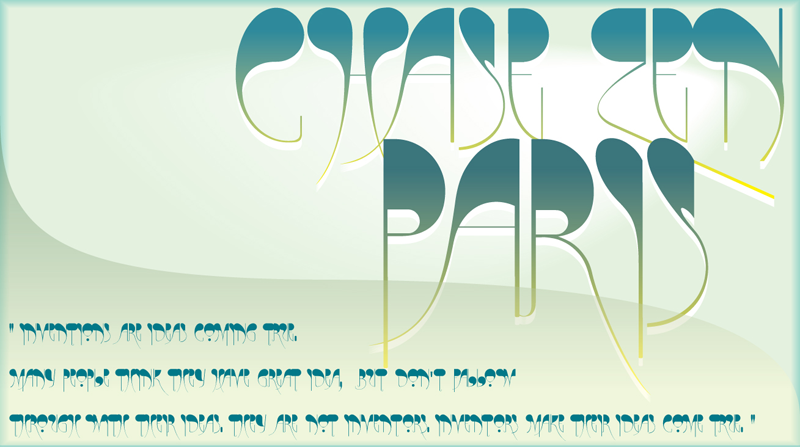
Font name: | Chase Zen Paris |
Author: | Chung-Deh Tien |
Note by Chung-Deh Tien | |
This is my Art Deco / Art Nouveau font. it's only upper case. again it's dedicated to my nephew and his beloved friends who stay by his side. |